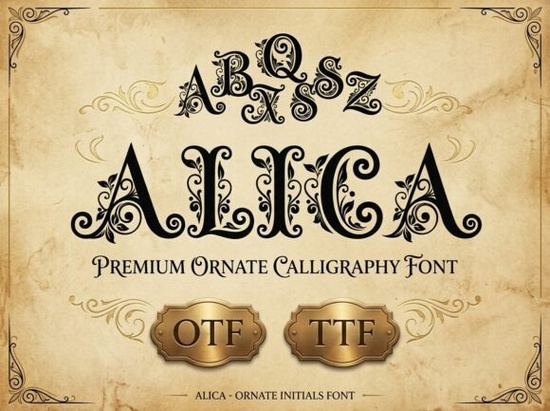
When you need typography that feels rich, historic, and deeply detailed, Alica Font offers a stunning solution. This premium ornate calligraphy typeface brings Victorian elegance and botanical artistry directly to your workspace. Instead of plain lettering, you get intricate capital letters featuring sweeping swashes intertwined with delicate floral vines and leaf motifs. It is built specifically for designers, crafters, and small business owners who want to add a touch of timeless decorative art to their high-end projects.
What makes this typeface ideal for luxury branding?
The main draw of this style is the level of detail in every single character. Traditional calligraphy often focuses on smooth, flowing lines, but this design goes further by embedding actual botanical illustrations into the letterforms.
- Intricate detailing: Each capital letter acts as a masterwork of art, blending text with illustration.
- Historic feel: The Victorian inspiration gives it a heritage look that feels established and expensive.
- Decorative swashes: The sweeping extensions allow you to frame other text or create beautiful standalone monograms.
When small businesses want to communicate quality and tradition, using typography with this level of craftsmanship immediately signals a premium experience to the customer. For print-on-demand sellers, this means your mugs, tote bags, or art prints will have a much higher perceived value just from the lettering alone.
Which projects work best with ornate calligraphy styles?
Because the letterforms are so highly detailed, they need space to breathe. You wouldn't use this for a paragraph of body text on a website, but it shines in specific, high-impact applications. If you are browsing through script and display styles for your next big project, keep these use cases in mind:
- Premium wine labels: The botanical vines pair perfectly with vineyard branding and vintage aesthetics.
- High-end wedding invitations: Couples looking for a romantic, traditional, or royal theme will love the sweeping floral capitals. When a guest receives an invite with this level of detail, it sets the tone for the entire event.
- Ornamental monograms: The intertwined leaves and swashes make it easy to create beautiful, custom initials for stationery or branding.
- Heritage-style logos: Perfect for boutique hotels, artisanal bakeries, or bespoke tailors who want a classic, established look.
How should you pair it with other typography?
A common mistake when using highly decorative lettering is pairing it with another busy font. To let the floral vines and intricate swashes stand out, you need a clean, simple secondary typeface. A minimalist sans-serif or a very basic, highly legible serif works best for your body copy.